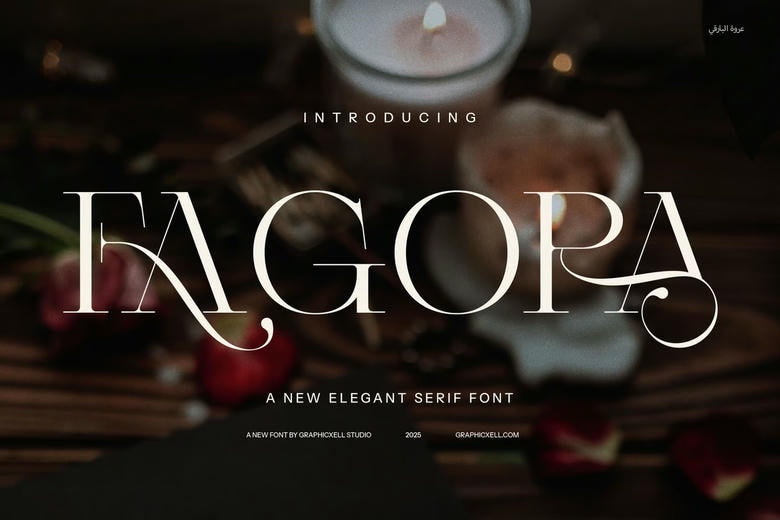
Fagora Font
Fagora is a beautiful grotesque with a contemporary and a serif look added to the mixture and can be used in any design project. This typeface is characterized by its elegant rounded forms and slender outlines of the letters; it has numerous ligatures and variants, which make the typeface’s nature look delicate and hand-made as well as award giving it a unique appearance.
Fagora is ideal for designers in search of logos, corporate identity, web site design, magazine and ad design. Whether you’re focusing on a store or a gourmet brand, after all, or a luxury brand, the hand-drawn, elegant characteristics of Fagora cause your design to appear vibrant and cheerful. The font’s calligraphic characters make the font very fluid and elegant which also provides flexibility and readability for both the print and digital platform due to its modern serif.
Fagora excels in such superior class projects where an aristocratic look is mandatory. Having ligatures and different versions makes it suitable for those seeking to inject some novelty into their letters flowing in unique, crafted manner. It is most suitable for invitations, branding, and packaging and it embellishes the appearance of each identity with greater luxury.
Fagora Serif Font